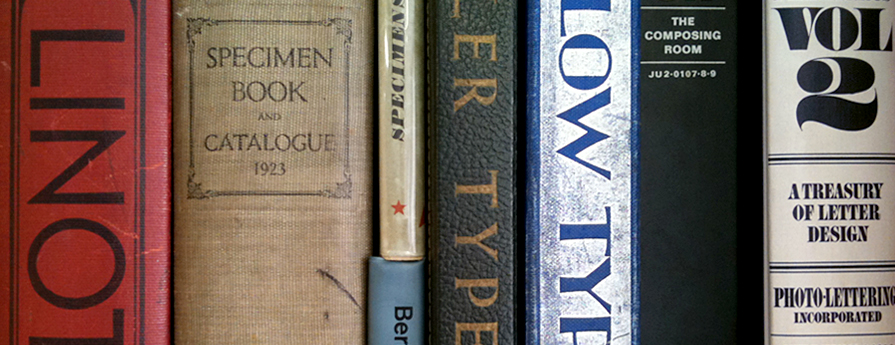
A font designed specifically as a display font. Inspired by machine-cut wood type and sans and slab faces from historical specimens, Impacto is a solid, bold face created for high impact. It’s a new font with plenty of history. The Condensed styles offers the user maximum typographic impact on a limited surface.